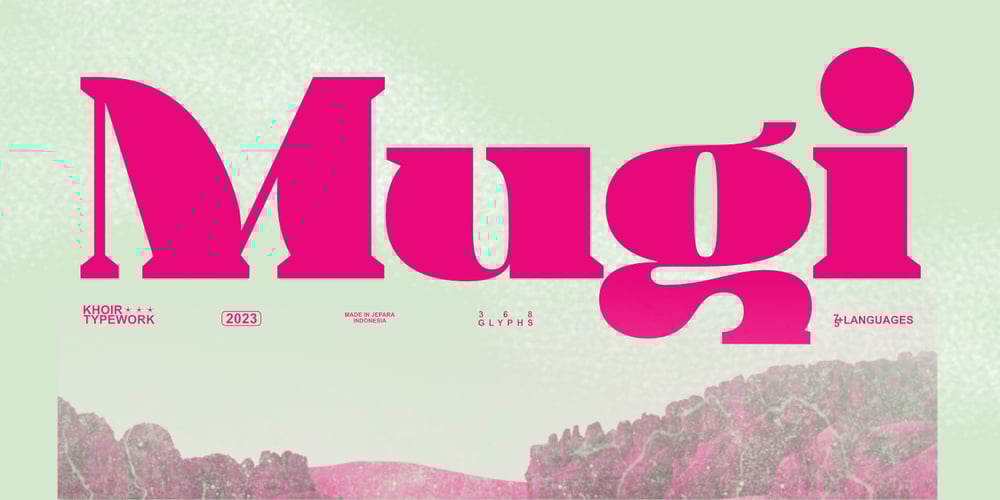
Mugi Font Family was designed by Muhammad Romzul Khoir and published by Khoir. Mugi contains 1 styles and family package options. Not the usual bold serif, this is a bold serif that is unique, attractive and worth trying to apply to various backgrounds of your work, whether in branding, posters, logos, quotes, films, packaging and others.This serif has a magical curved shape that can be seen when you look at it, guaranteed to attract attention. Mugi Uppercase Lowercase 75+ Language So what are you waiting for? immediately purchase this font, feel free to comment, or send me my PM or email at khoirtypework@gmail.com Thank you for seeing